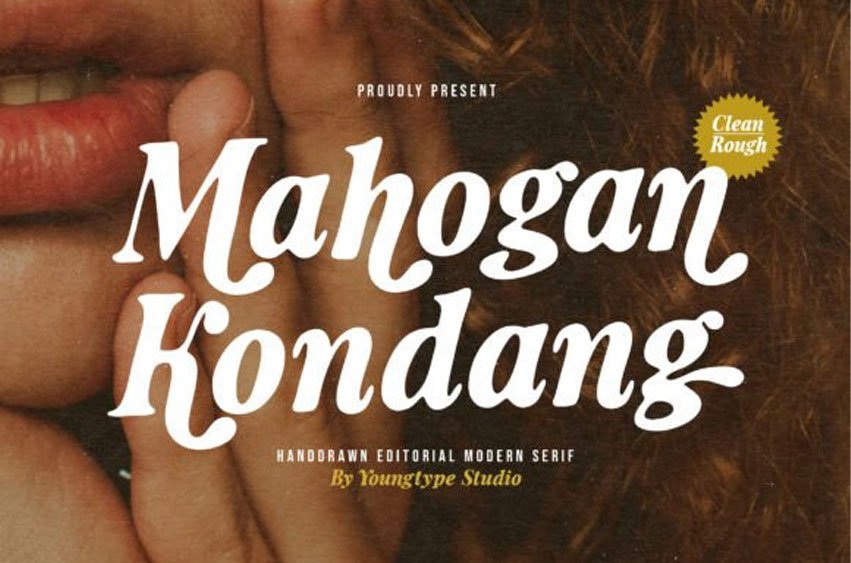
Mahogan Kondang Font Infuse your designs with vintage-inspired prestige with Mahogan Kondang, a handdrawn editorial serif that captures a “retro-and-sophisticated” soul. Available in both Clean and Rough styles, this font features bold, rhythmic letterforms characterized by high-contrast strokes and fluid, organic terminals that evoke the classic charm of mid-century advertising.
With its artistic structural weight and editorial edge, Mahogan Kondang is the premier choice for independent fashion magazine headers, upscale cafe branding, artisanal product packaging, and high-impact “vintage-meets-modern” social media headers.